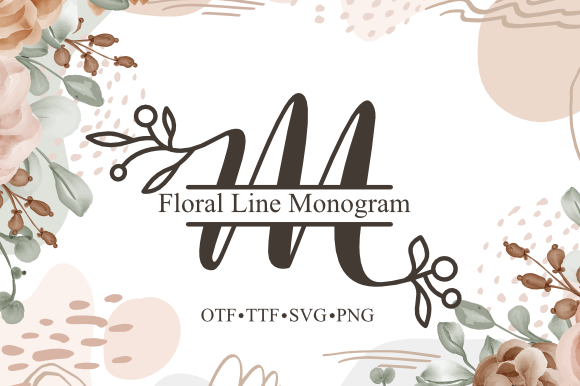
Introducing the Floral Line Monogram Font: Elevate Your Designs with Elegance
The world of typography is vast and diverse, offering a multitude of fonts to suit every design need. Among these, the Floral Line Monogram Font stands out as a unique and captivating choice. This dainty and decorative font is perfect for adding a touch of romance and elegance to various projects, from love letters and wedding invitations to design ideas and more.
The Charm of Floral Line Monogram Font
Floral Line Monogram Font is a beautifully crafted typeface that combines the simplicity of line art with the intricate details of floral patterns. The result is a font that exudes a sense of delicacy and sophistication, making it ideal for projects that require a touch of whimsy and romance.
Uses for Floral Line Monogram Font
The versatility of Floral Line Monogram Font makes it suitable for a wide range of applications. Here are some ideas to get you started:
- Wedding Invitations: Add a touch of elegance to your wedding invitations with this beautiful font. It’s perfect for printing formal and informal wedding invites, save-the-date cards, and thank-you notes.
- Love Letters: Make your love letters even more special with Floral Line Monogram Font. The font’s romantic and whimsical design will surely make your letters stand out.
- Design Ideas: Use Floral Line Monogram Font to add a touch of sophistication to your design projects. It’s perfect for creating beautiful posters, flyers, brochures, and more.
- Stationery: Create stunning stationery sets, including notecards, journals, and planners, with Floral Line Monogram Font.
Benefits of Using Floral Line Monogram Font
So, why choose Floral Line Monogram Font for your projects? Here are some benefits to consider:
- Unique and Eye-Catching: Floral Line Monogram Font is a one-of-a-kind typeface that will make your projects stand out from the crowd.
- Elegant and Sophisticated: The font’s delicate design and floral patterns evoke a sense of elegance and sophistication, perfect for formal and informal projects.
- Versatile: Floral Line Monogram Font can be used for a wide range of applications, from wedding invitations to design projects.
Tips for Using Floral Line Monogram Font
To get the most out of Floral Line Monogram Font, here are some tips to keep in mind:
- Pair with Simple Backgrounds: Floral Line Monogram Font looks best on simple backgrounds that allow the font to take center stage.
- Experiment with Colors: Try pairing the font with different colors to create unique and eye-catching combinations.
- Use for Headlines and Titles: Floral Line Monogram Font is perfect for headlines and titles, adding a touch of elegance and sophistication to your projects.
In conclusion, Floral Line Monogram Font is a beautiful and unique typeface that can elevate your designs with elegance and sophistication. Its versatility, ease of use, and eye-catching design make it perfect for a wide range of applications, from wedding invitations to design projects. So why not give Floral Line Monogram Font a try and see the difference it can make in your designs?